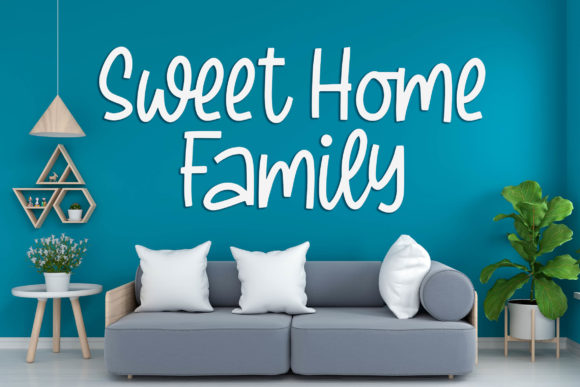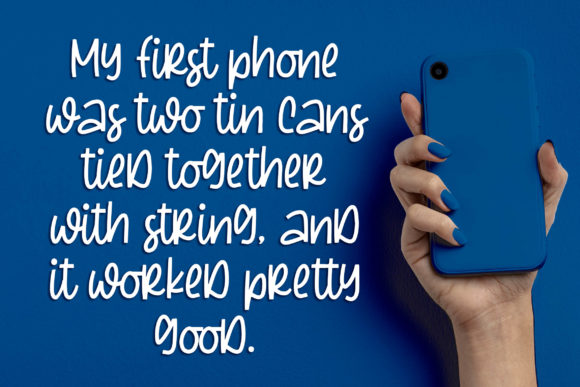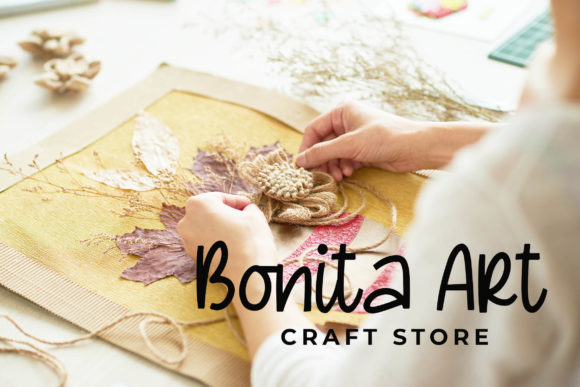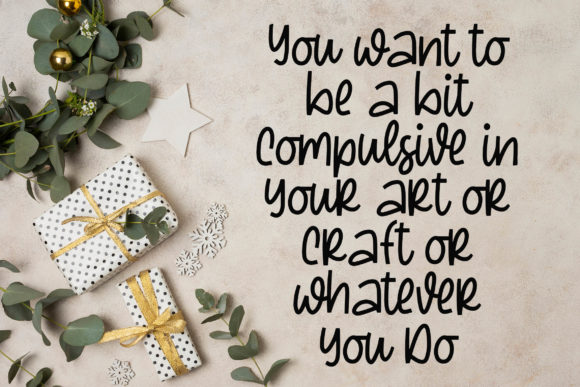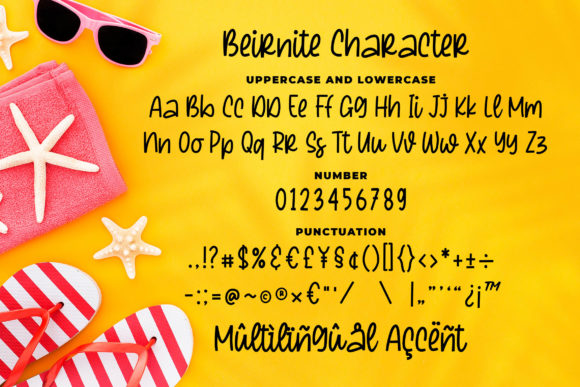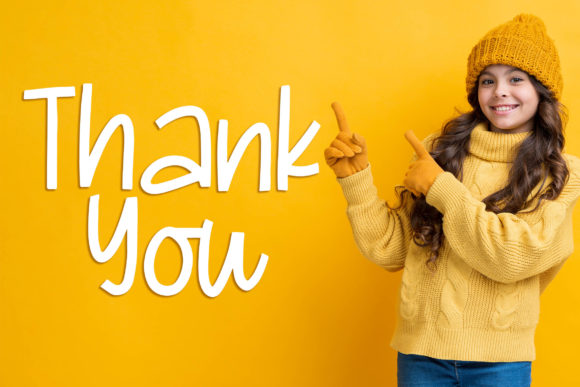
Discover the Unique Charm of Beirnite Font: Elevate Your Design Projects with Quirky Elegance
In the world of typography, fonts play a pivotal role in transforming a design project from ordinary to extraordinary. Among the myriad of fonts available, Beirnite stands out with its quirky and elegant script style, perfect for designers and crafters looking to infuse their creations with a touch of fun and personality. In this article, we’ll dive into the unique charm of Beirnite font, exploring its features, uses, and how it can elevate your design projects to new heights.
The Birth of Beirnite: A Quirky yet Elegant Script Font
Beirnite is not just another script font; it’s a carefully crafted typeface designed to radiate fun while maintaining an air of elegance. Its unique charm lies in its ability to balance playfulness with sophistication, making it an ideal choice for a wide range of design projects. Whether you’re working on a branding project, crafting a stylish invitation, or designing a captivating poster, Beirnite offers the perfect blend of quirkiness and refinement.
Key Features of Beirnite Font
• Unique Letterforms: Beirnite boasts distinctive letterforms that set it apart from more traditional script fonts. Its characters are designed with a touch of whimsy, ensuring that your text stands out.
• Elegant Flow: Despite its quirky nature, Beirnite maintains an elegant flow, making it highly readable and perfect for longer texts.
• Versatility: This font is incredibly versatile, suitable for a variety of design projects, from digital content to print materials.
• Easy to Pair: Beirnite can be easily paired with other fonts to create stunning contrasts and hierarchies in your designs.
How to Use Beirnite Font in Your Design Projects
Beirnite’s versatility makes it suitable for numerous applications. Here are some ideas to get you started:
• Branding and Logotypes: Use Beirnite to create a memorable brand identity that stands out from the crowd. Its unique charm can help your brand leave a lasting impression.
• Invitations and Cards: Add a touch of elegance and whimsy to your invitations, greeting cards, and other personal stationery with Beirnite.
• Posters and Flyers: Make your posters and flyers pop with Beirnite. Its quirky elegance is sure to capture attention and convey your message effectively.
• Digital Content: Whether it’s a blog post, social media graphic, or website header, Beirnite can add a distinctive flair to your digital content.
Tips for Maximizing Beirnite’s Impact
To make the most of Beirnite font, consider the following tips:
• Experiment with Sizes: Play around with different font sizes to emphasize certain words or phrases, adding depth to your design.
• Color Matters: Choose colors that complement the tone of your project. Beirnite works well with both vibrant and muted color palettes.
• Mix and Match: Don’t be afraid to combine Beirnite with other fonts. The contrast can add visual interest and highlight key information.
Beirnite font offers a refreshing blend of quirkiness and elegance, making it a valuable addition to any designer’s toolkit. Its unique charm and versatility ensure that it can be used across a variety of projects, from branding and advertising to personal stationery and digital content. By incorporating Beirnite into your designs, you’re not just adding text; you’re infusing your projects with personality and flair. So, why settle for ordinary when you can make your designs stand out with the distinctive charm of Beirnite?
Embrace the fun and elegance of Beirnite font, and watch your design projects transform into standout creations that capture attention and inspire.